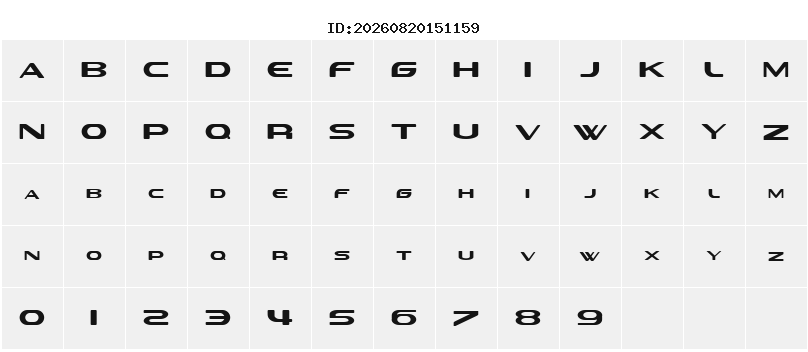
Sevil alias Esra Lite Preview
• Font Name: Sevil alias Esra Lite
• Full Font Name: Sevil alias Esra Lite
About Sevil alias Esra Lite.ttf
Sevil alias Esra Lite.ttf is a modern, elegant sans-serif font designed for ultimate readability and visual harmony. Perfect for branding, headlines, web design, and print materials.